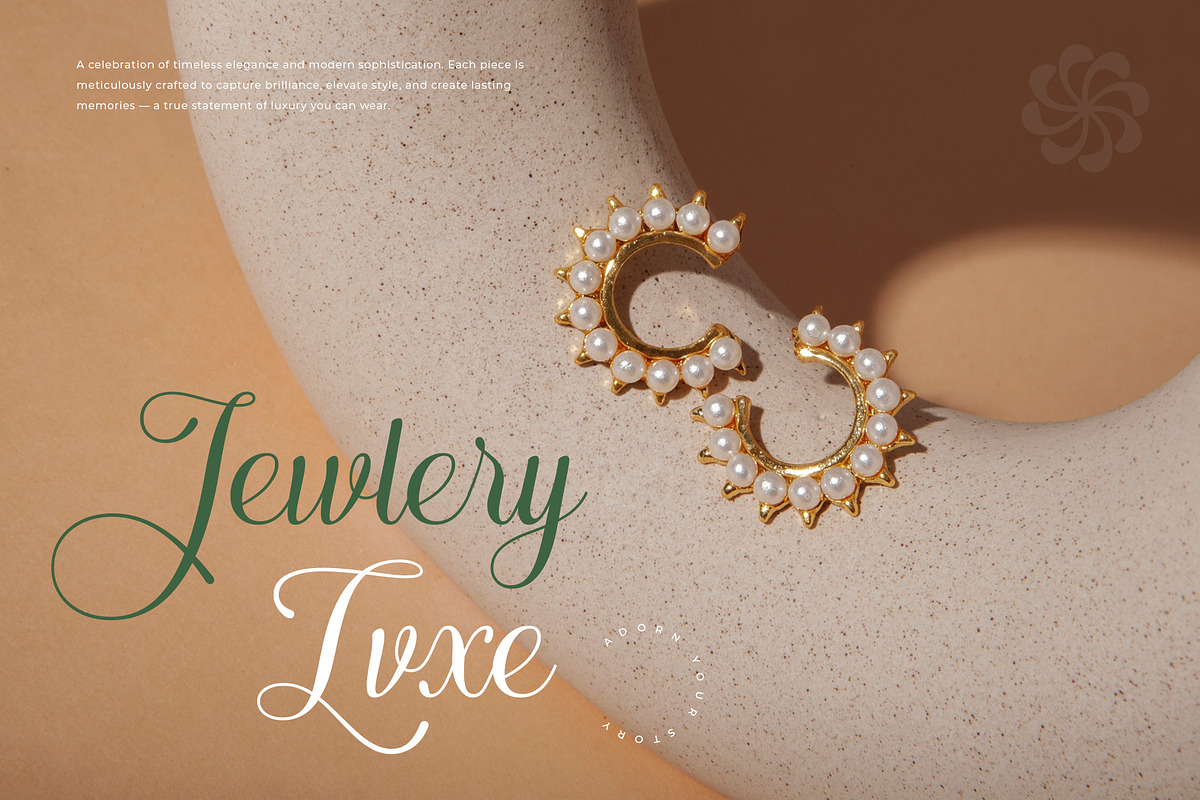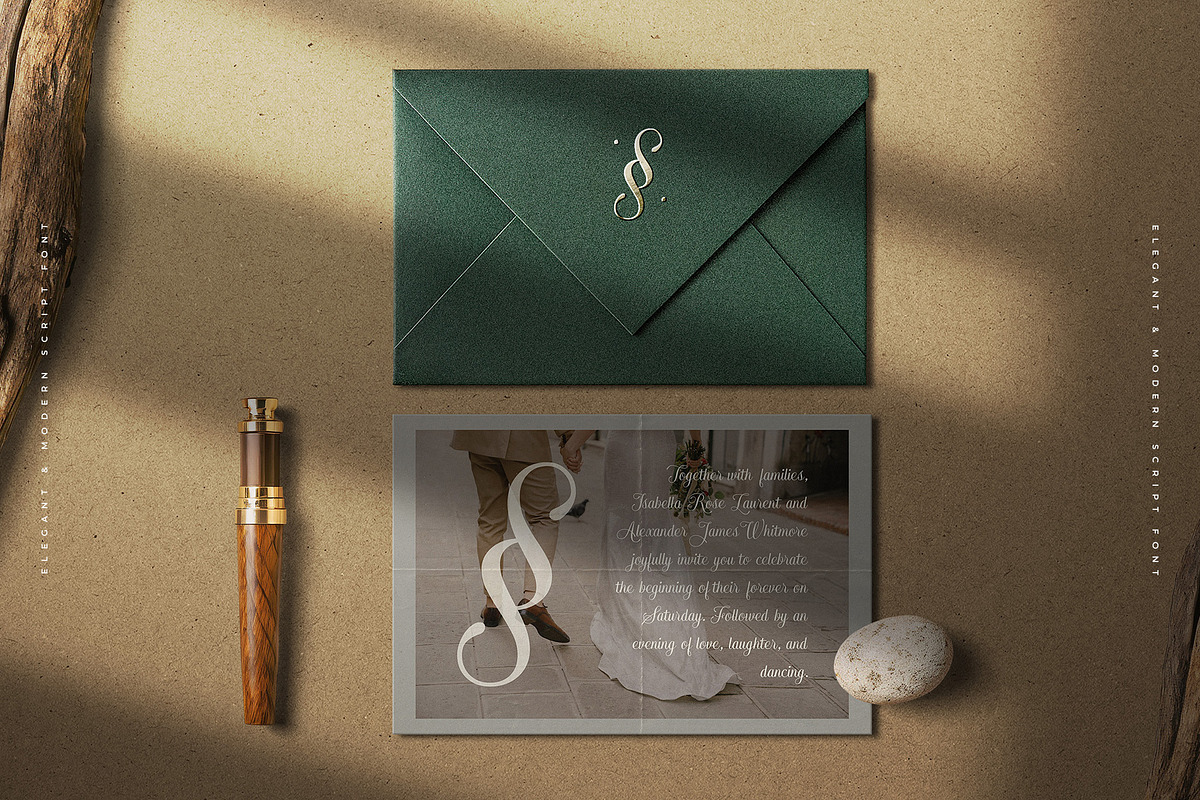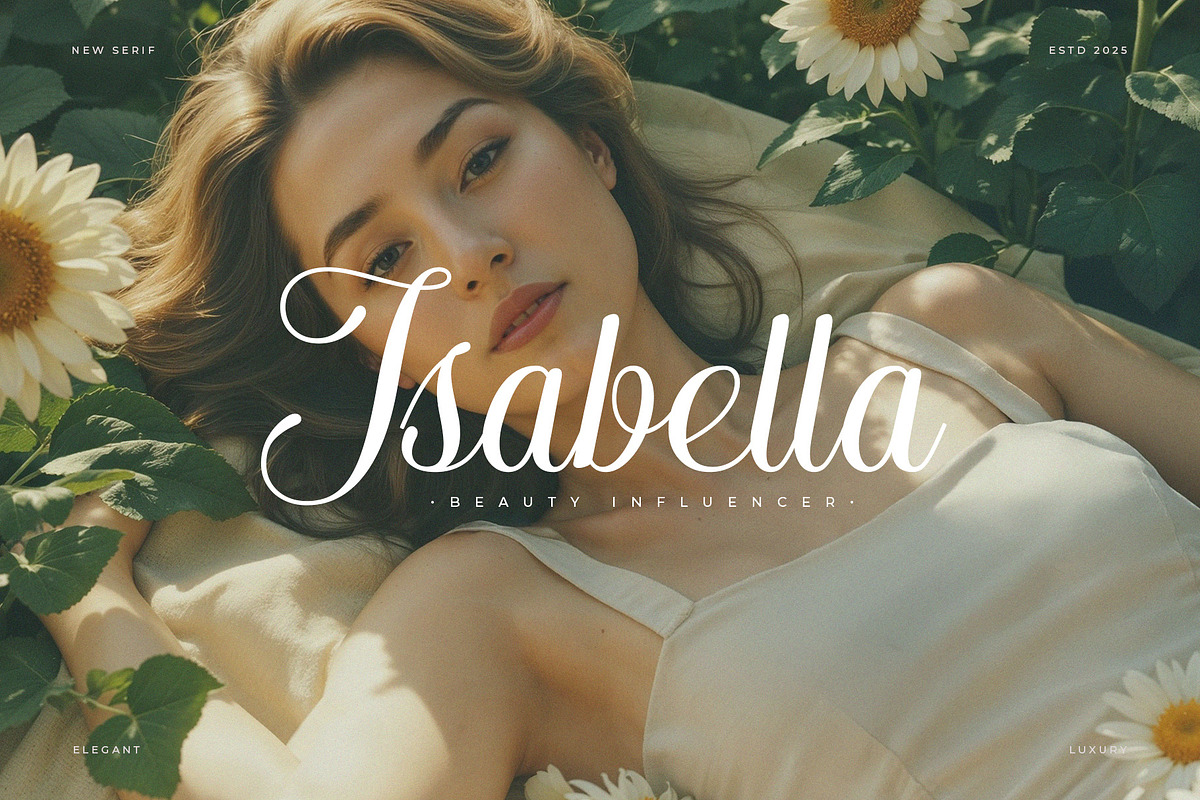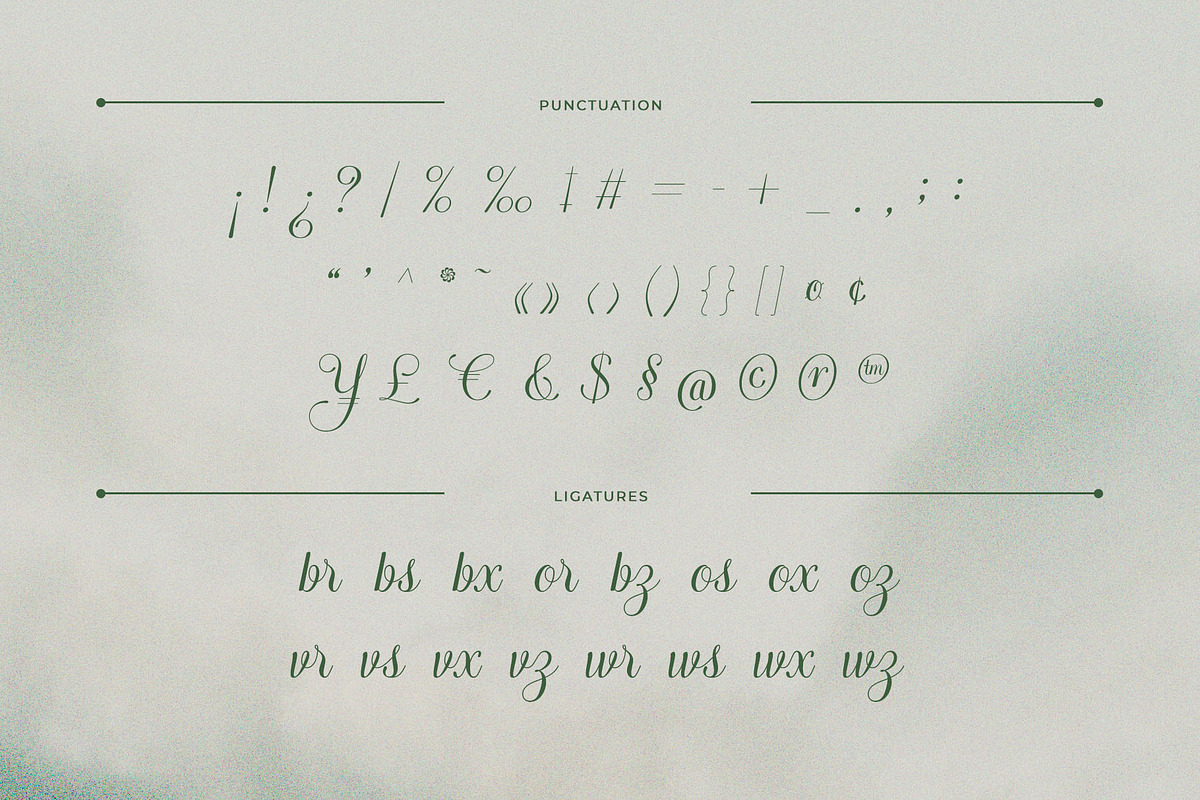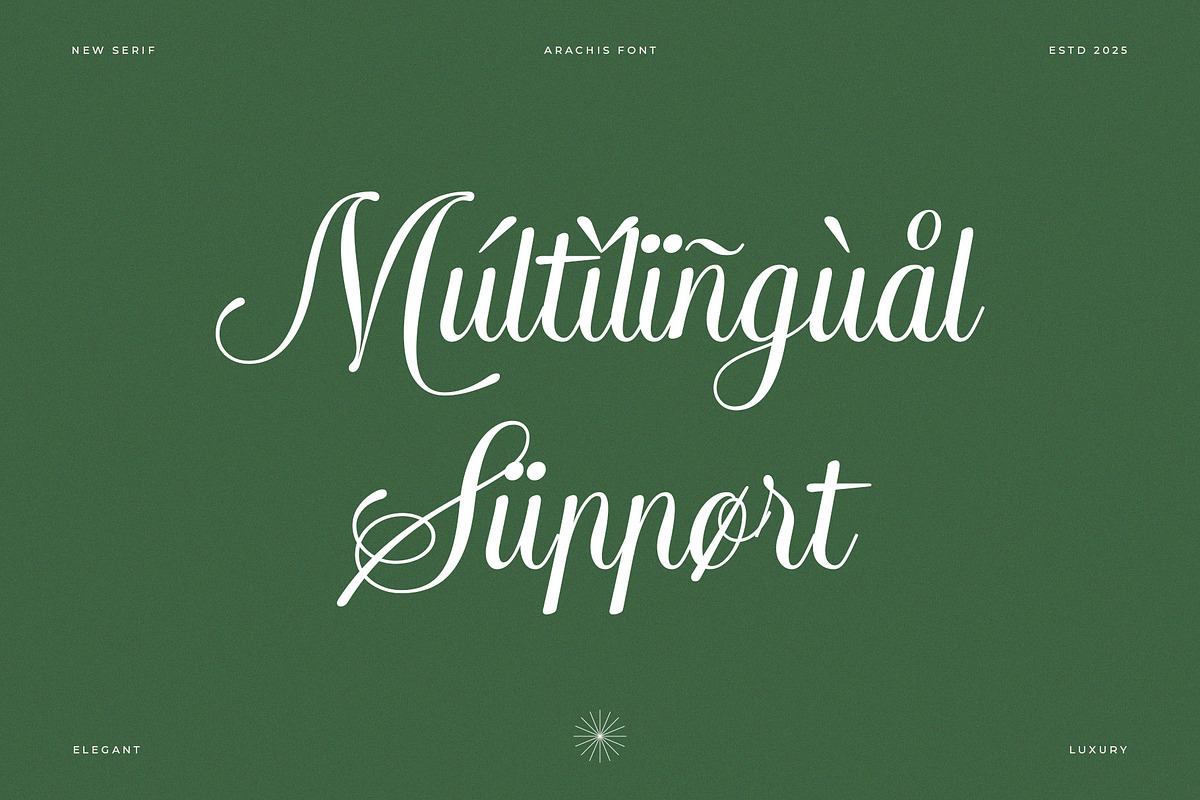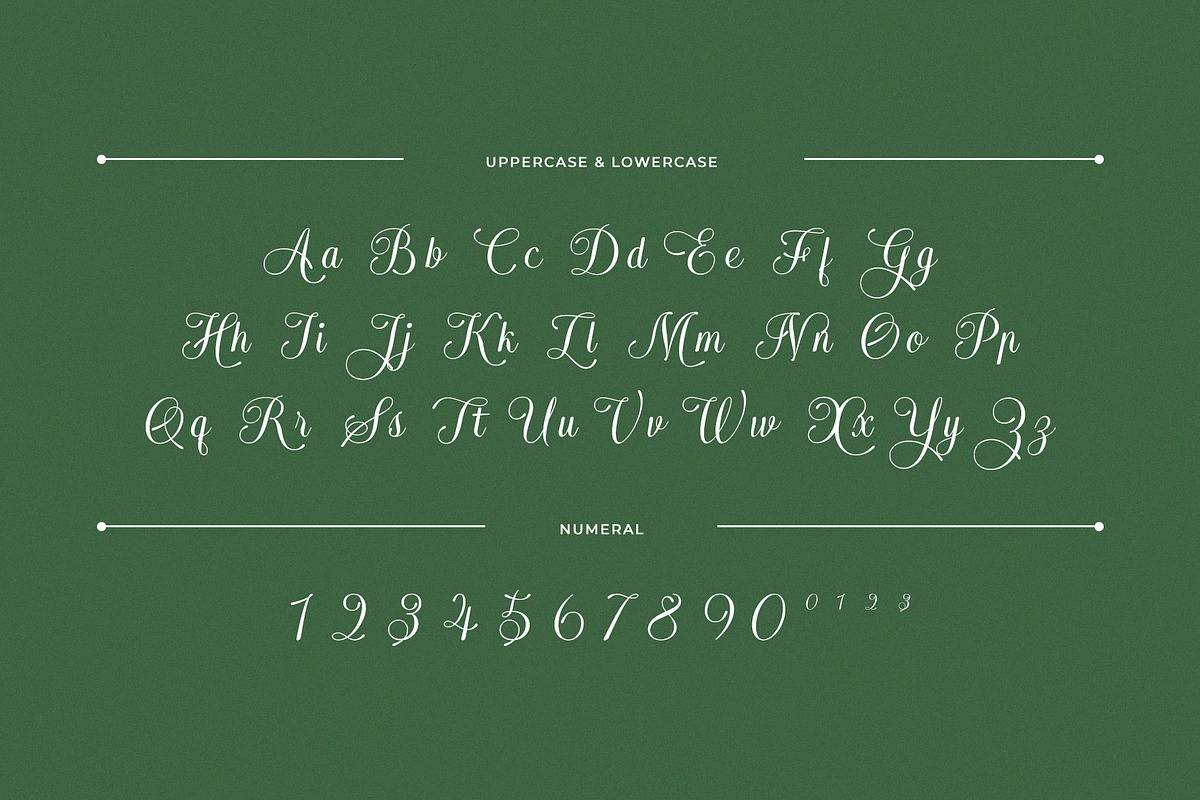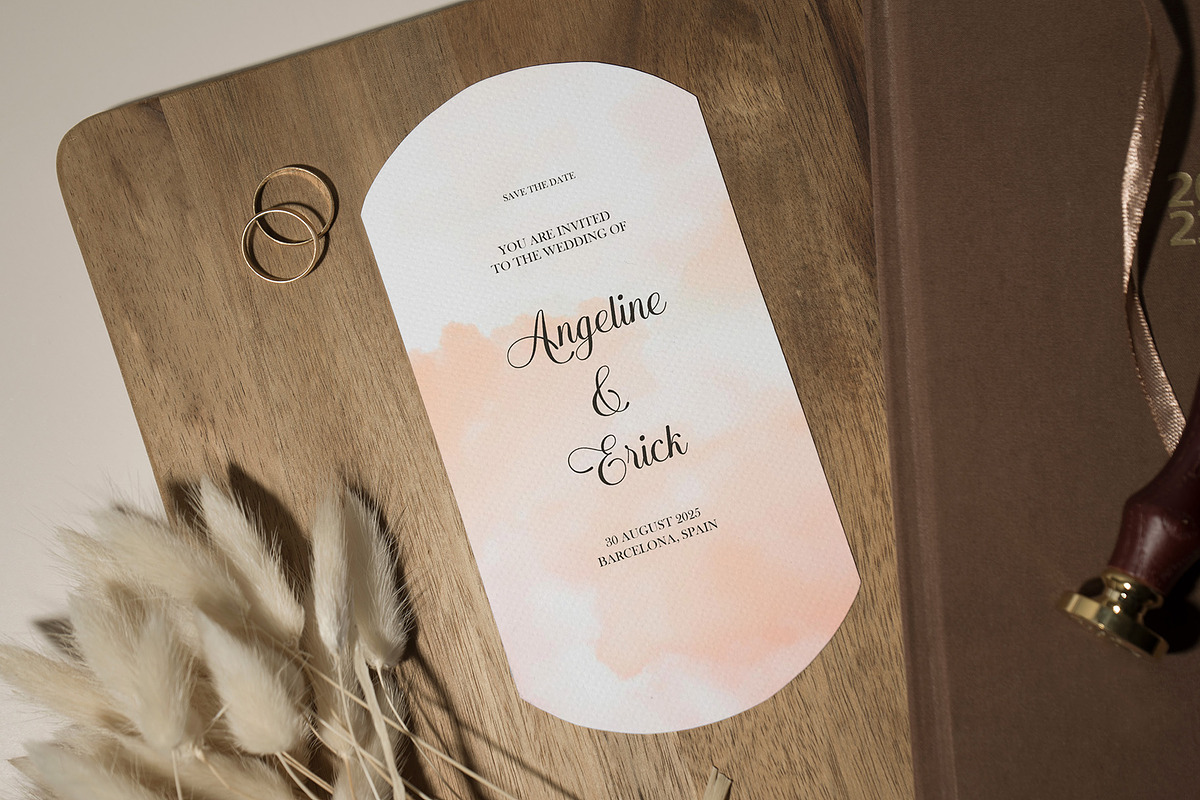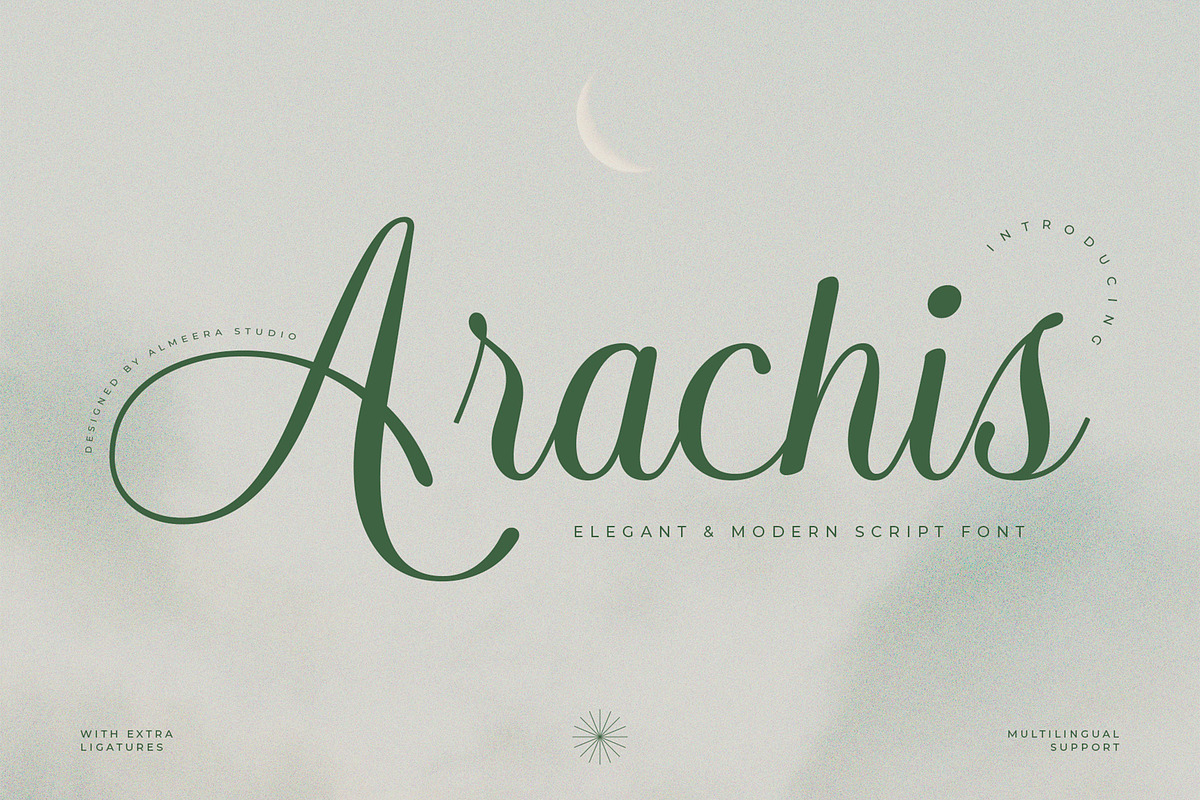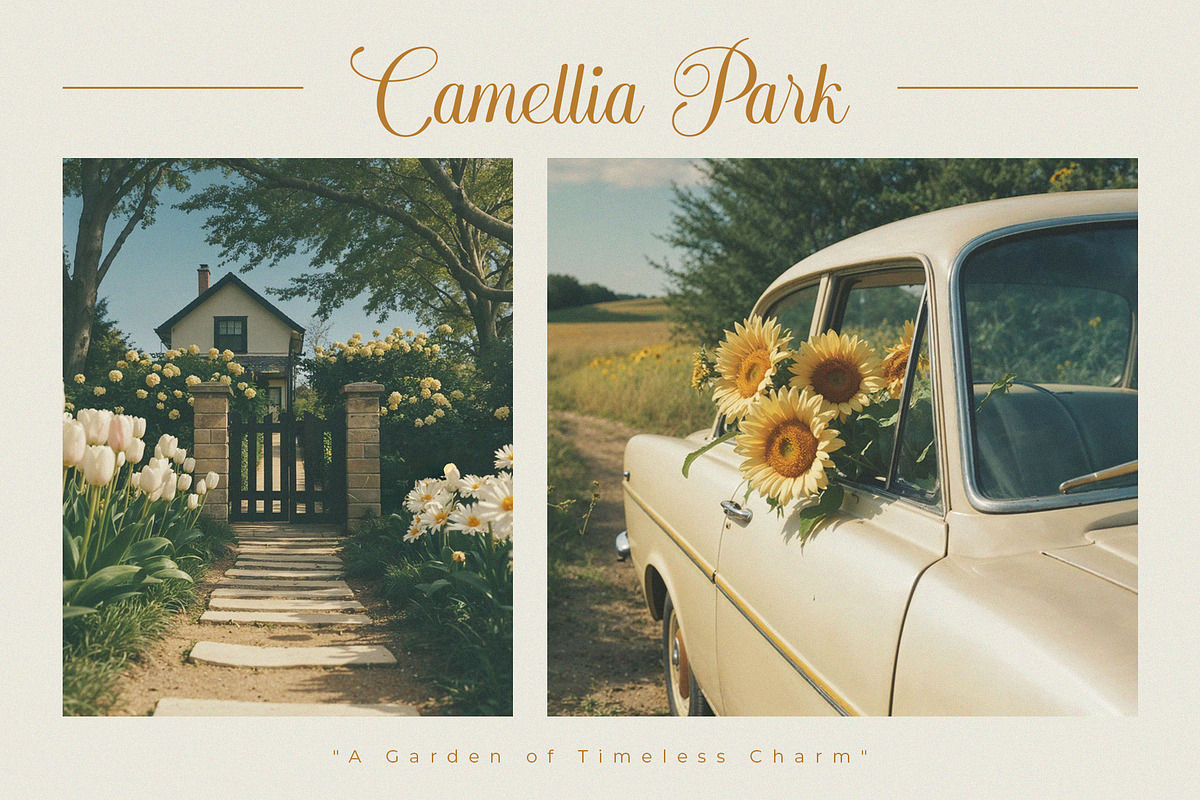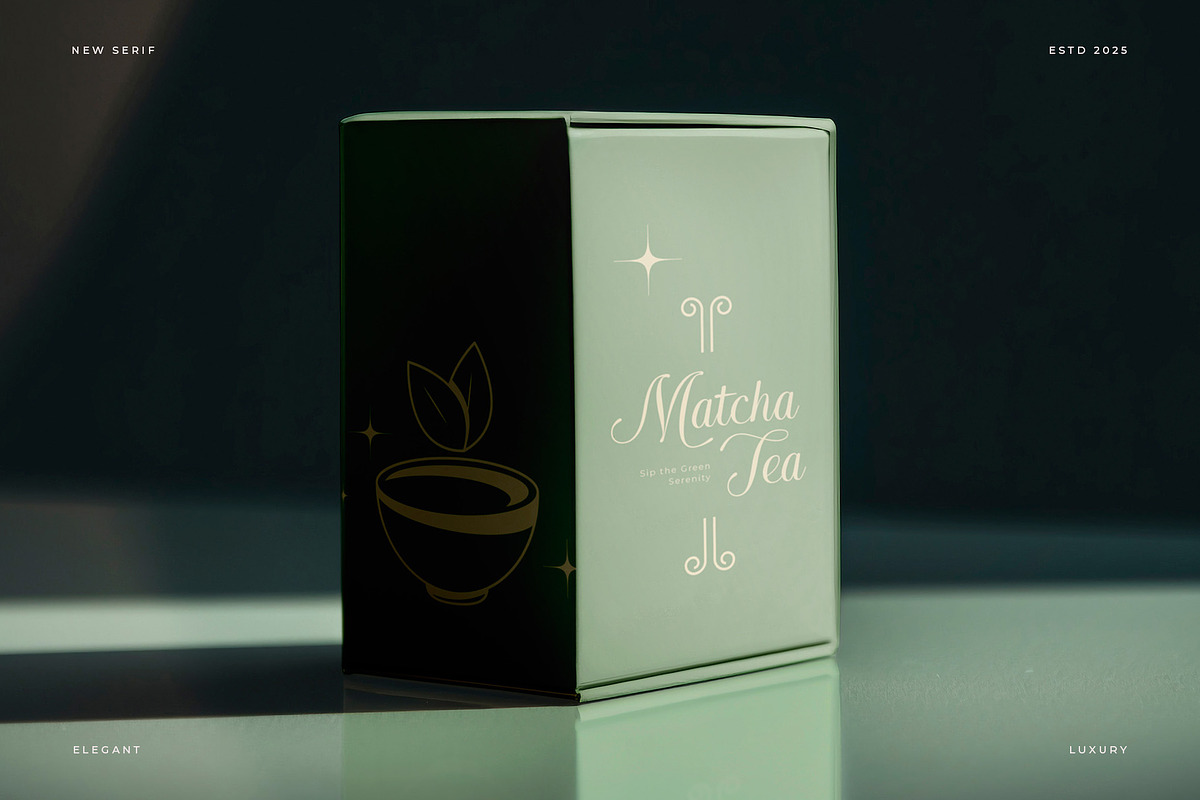
Arachis – Elegant & Modern Script
Step into sophistication with Arachis, an elegant and modern script font that blends timeless charm with a contemporary twist. Every curve and stroke is designed to exude luxury, making it the perfect choice for high-end branding, wedding invitations, product packaging, and editorial designs. With its extra ligatures, Arachis offers natural, flowing connections between letters for a refined and custom look. Multilingual support ensures your message speaks beautifully in any language. Whether you’re crafting a boutique logo or a romantic event invitation, Arachis delivers a polished, graceful finish that will captivate your audience.
- Playful alternates and swashy details
- Numerial